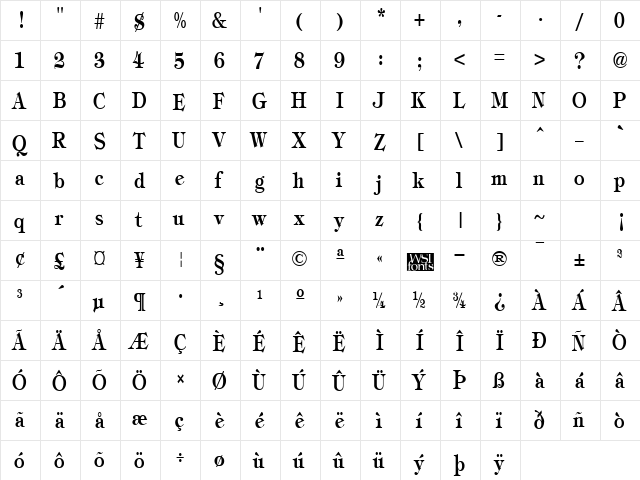
TimbrelCondensed Bold Font Preview
Design Context for TimbrelCondensed Typeface
TimbrelCondensed takes a measured approach to typography — its balanced proportions and neutral character make it a reliable workhorse for both digital and print work. The heavy weight commands attention and anchors typographic hierarchies. The condensed width makes it efficient for tight spaces without sacrificing legibility.